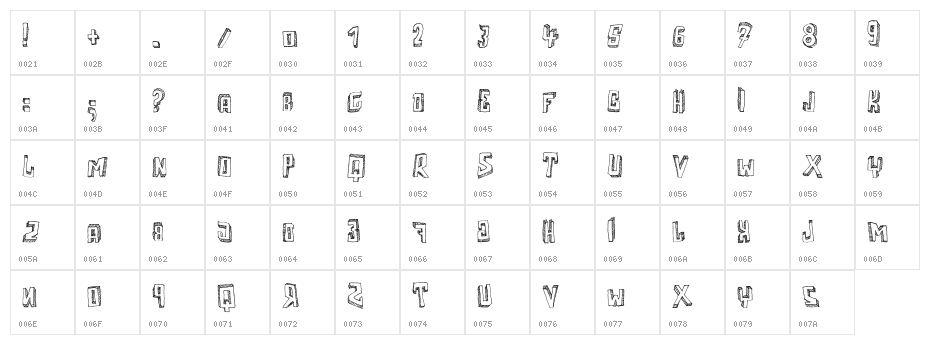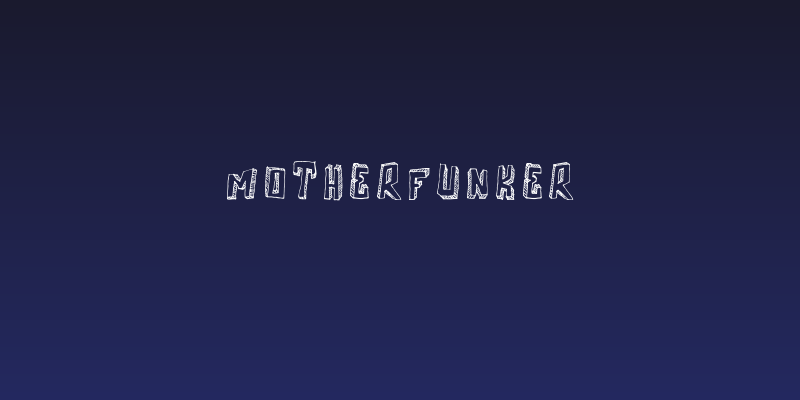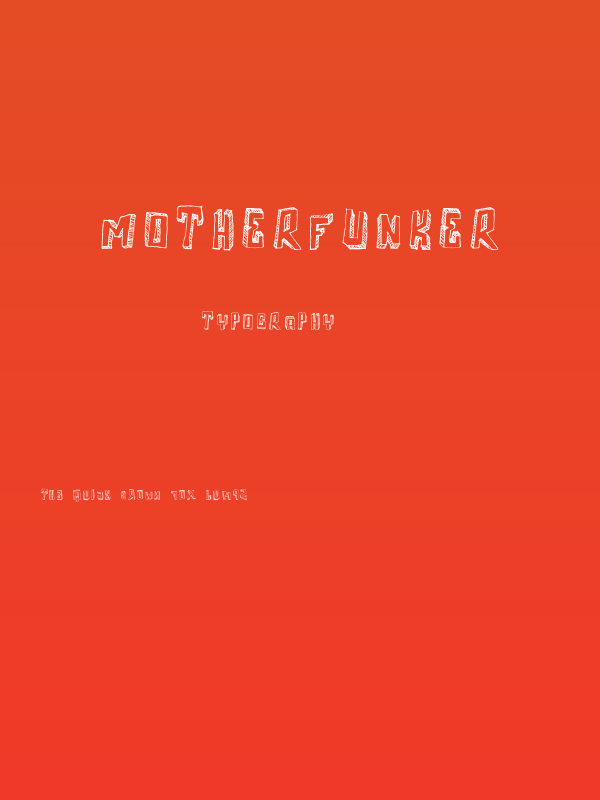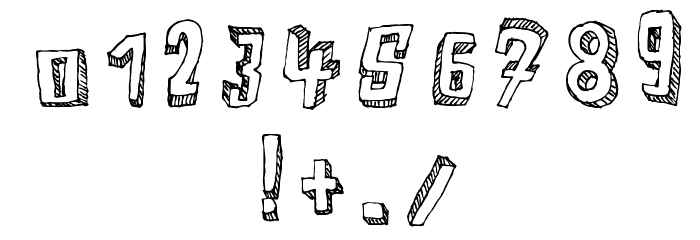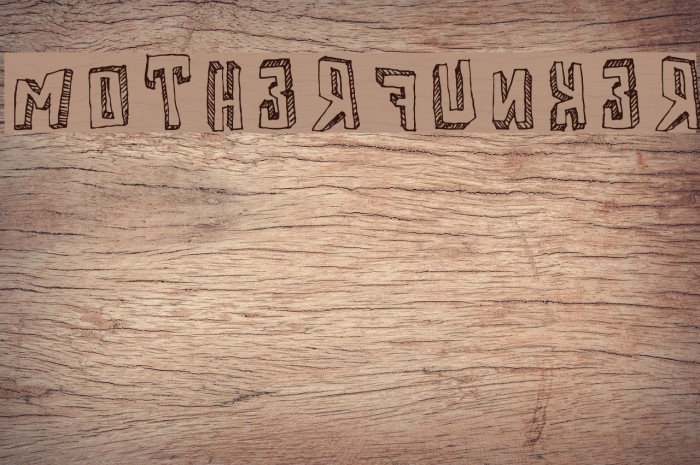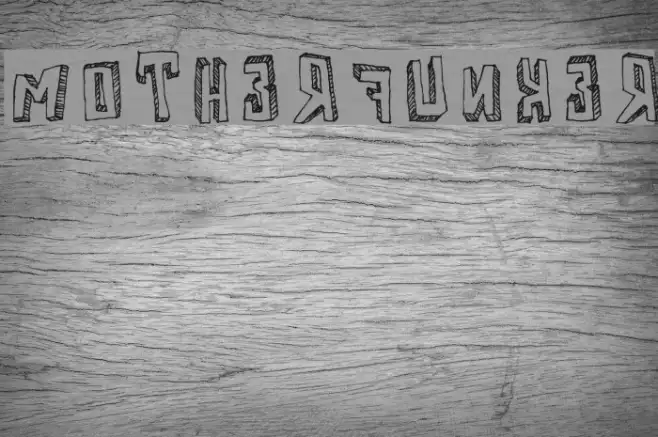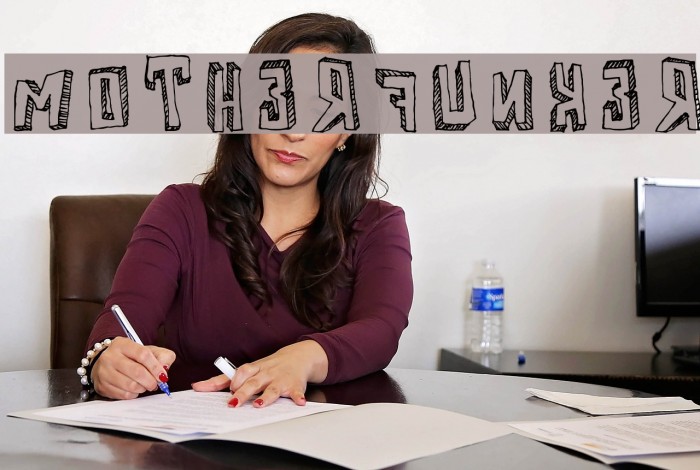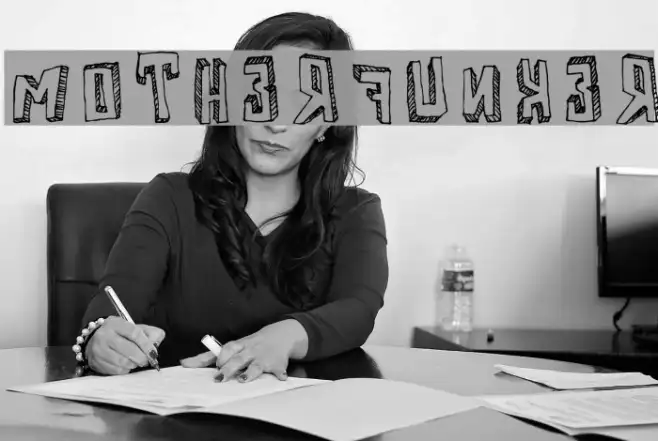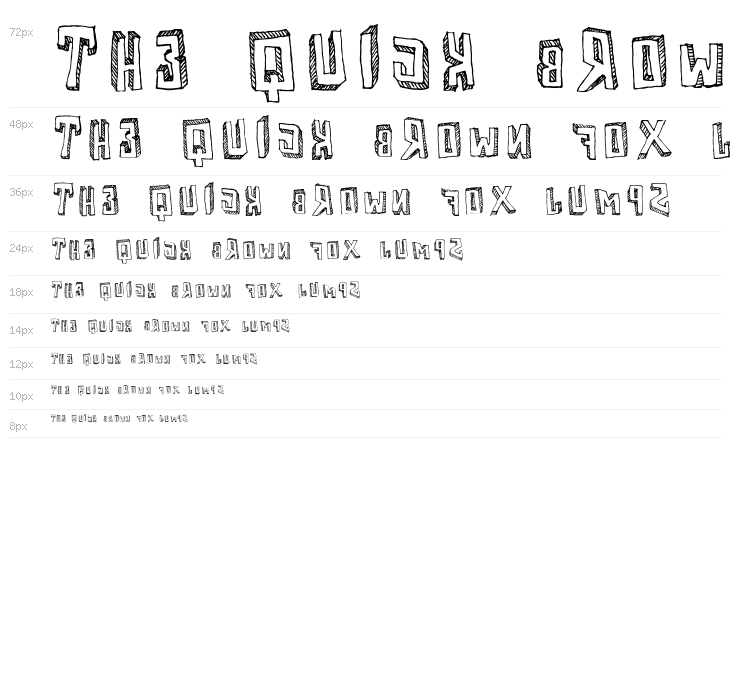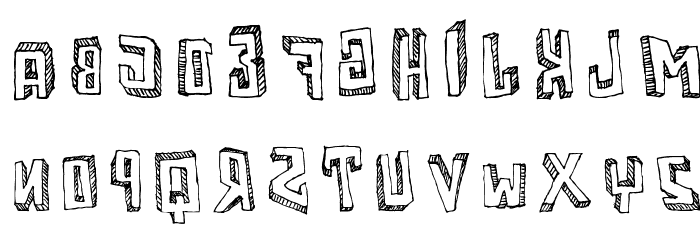
Motherfunker Font
Motherfunker Description
This font features a bold and playful 3D hand-drawn style, characterized by its sketch-like appearance and dynamic shading. Each character is outlined with a thick, uneven stroke, giving it a lively and informal feel. The letters have a slightly irregular shape, adding to the whimsical and artistic nature of the font. The shading on the right side of each character creates a sense of depth and dimension, making it stand out as a display typeface. The numbers and special characters follow the same playful design, ensuring consistency throughout the font.
| Overall Style | Playful, Artistic, Whimsical |
| Proposed Projects | Ideal for comic books, children's book covers, playful posters, and creative branding projects. |